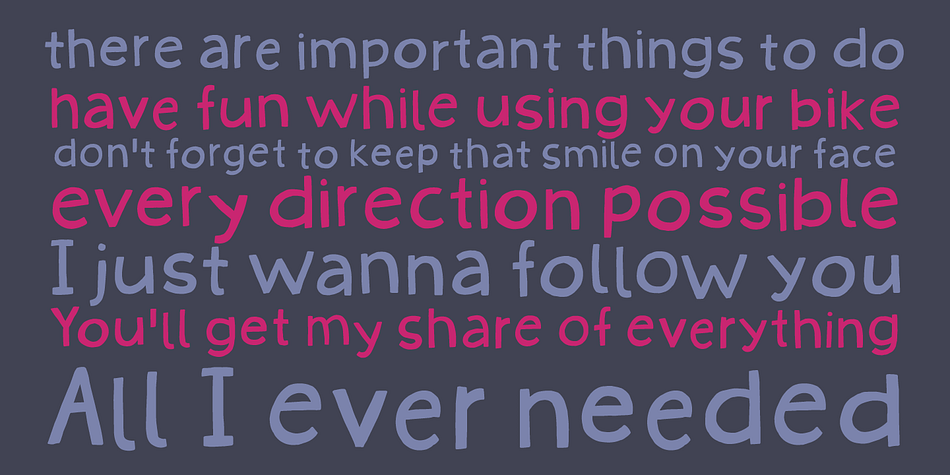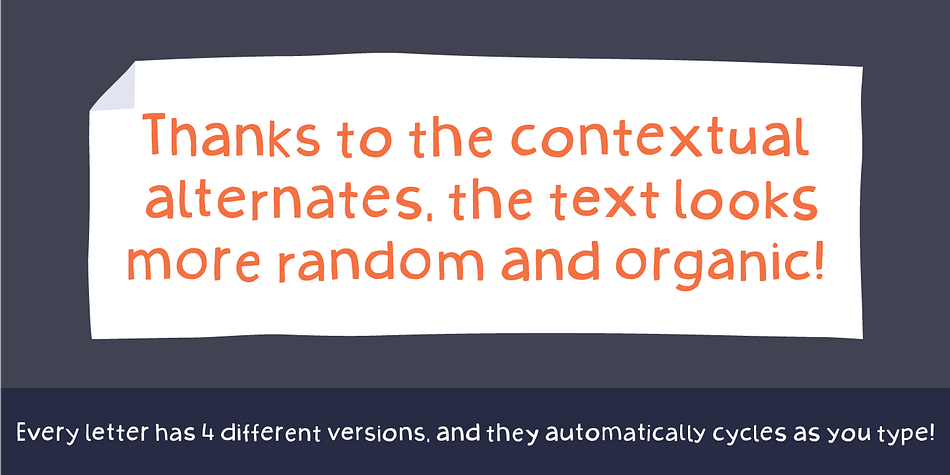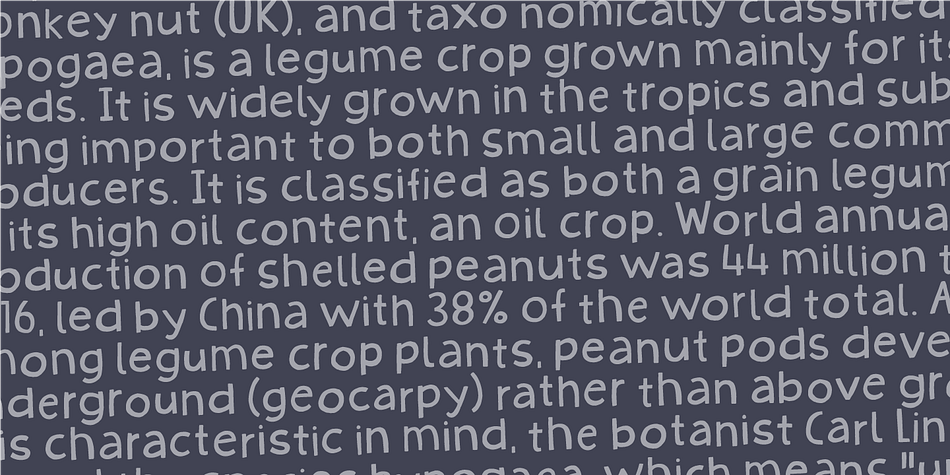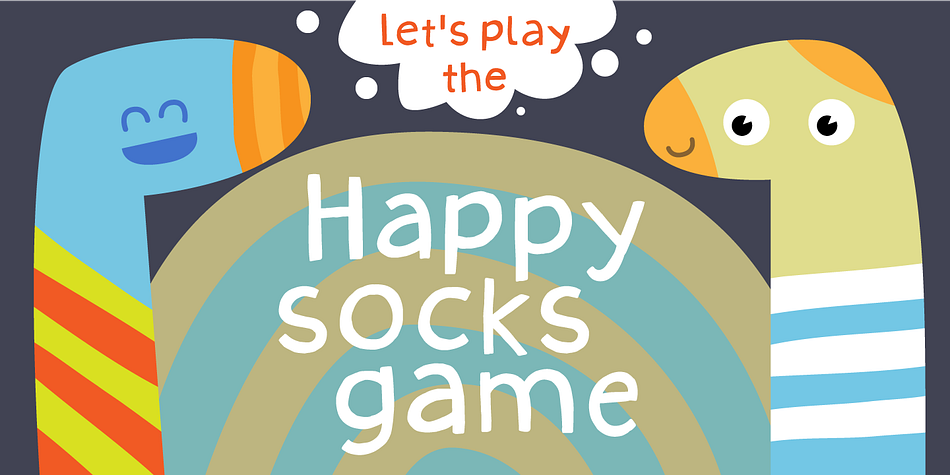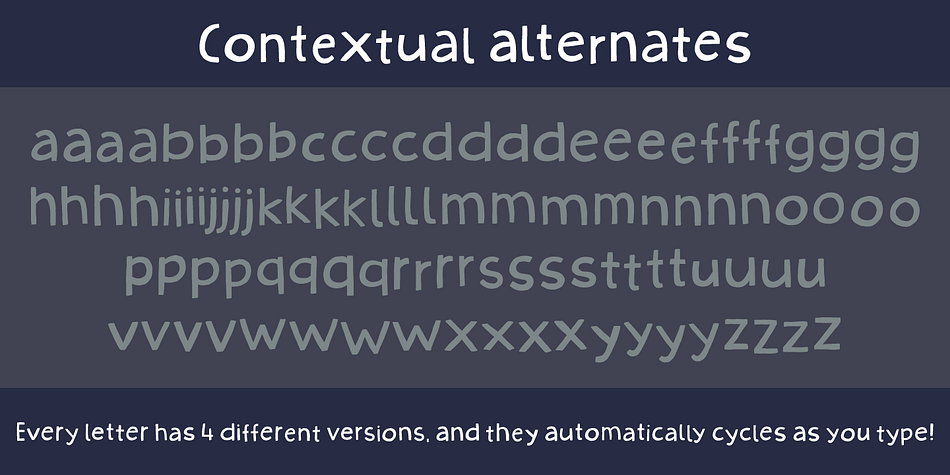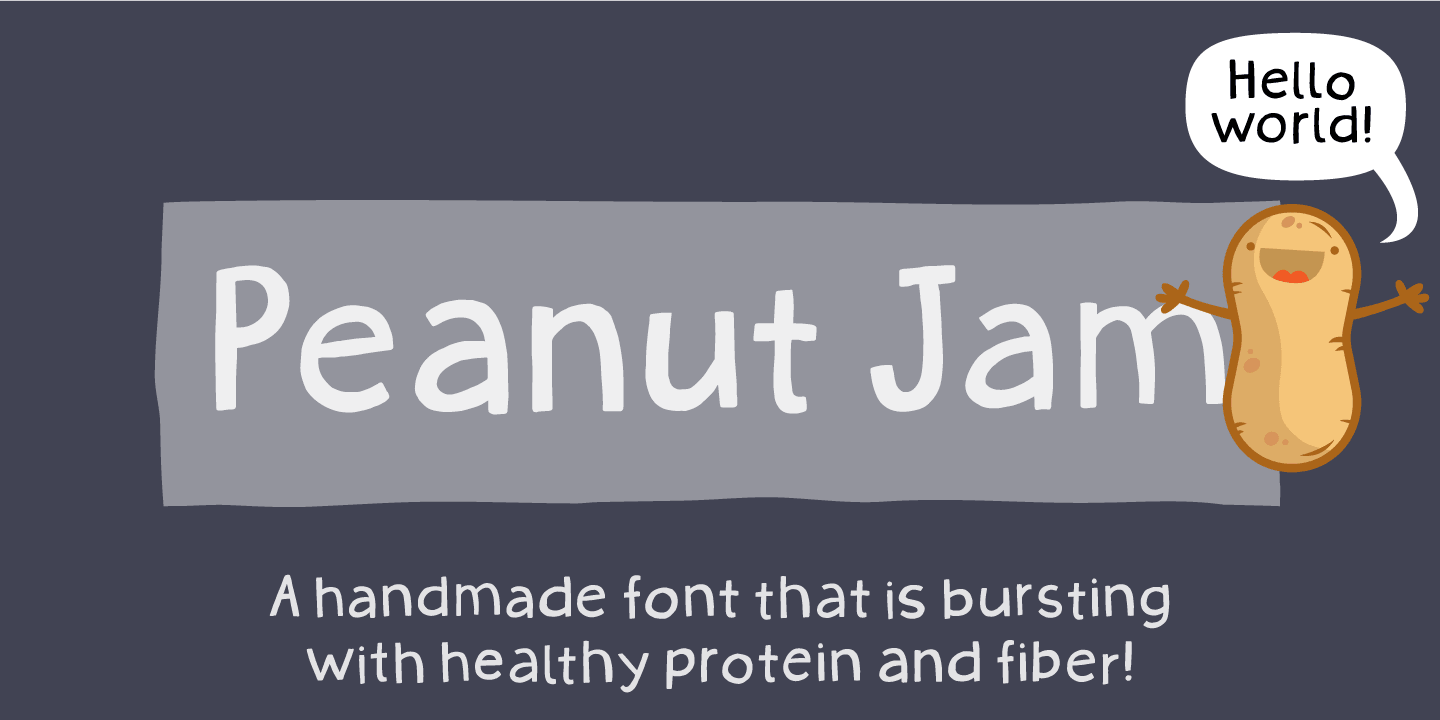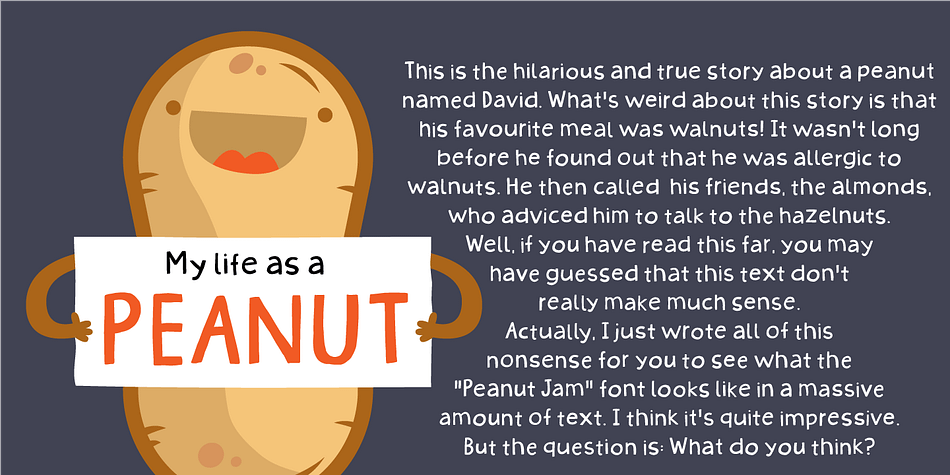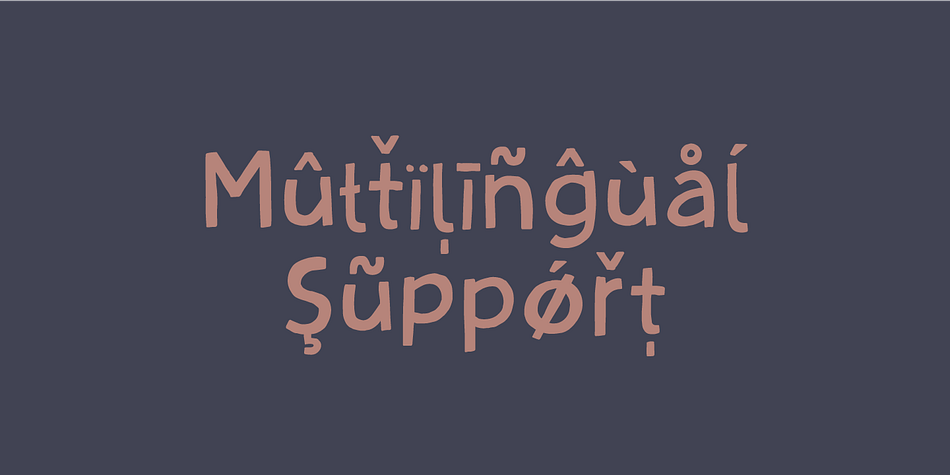
Designed by Jakob Fischer, Peanut Jam is a hand display, hand drawn and kids font family. This typeface has two styles and was published by Pizzadude.dk.
Peanuts are a good source of healthful fats, protein and fiber - and besides that, I looove peanuts! Every once in a while, I have to name a font peanut-something. But I only do that with fonts that have that organic and handmade look and feeling ... and in this case, this font looked perfect to have the honour! :)
Peanut Jam is super handmade and has 4 different versions of each lowercase letter and besides that, the font has multilingual support! Go get that peanut butter feeling! :)